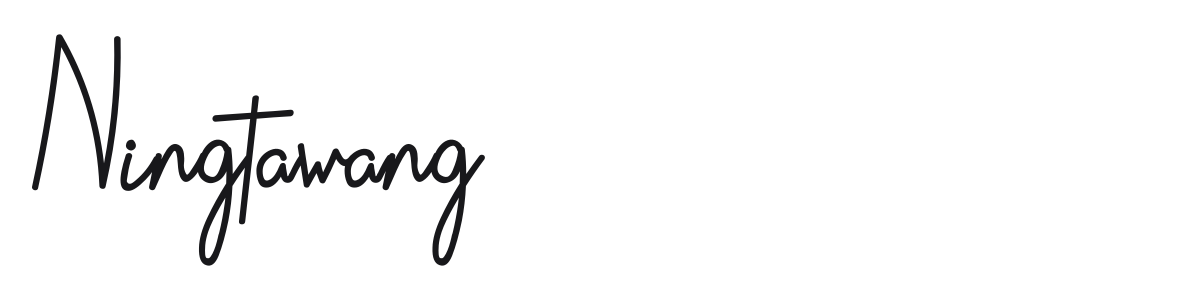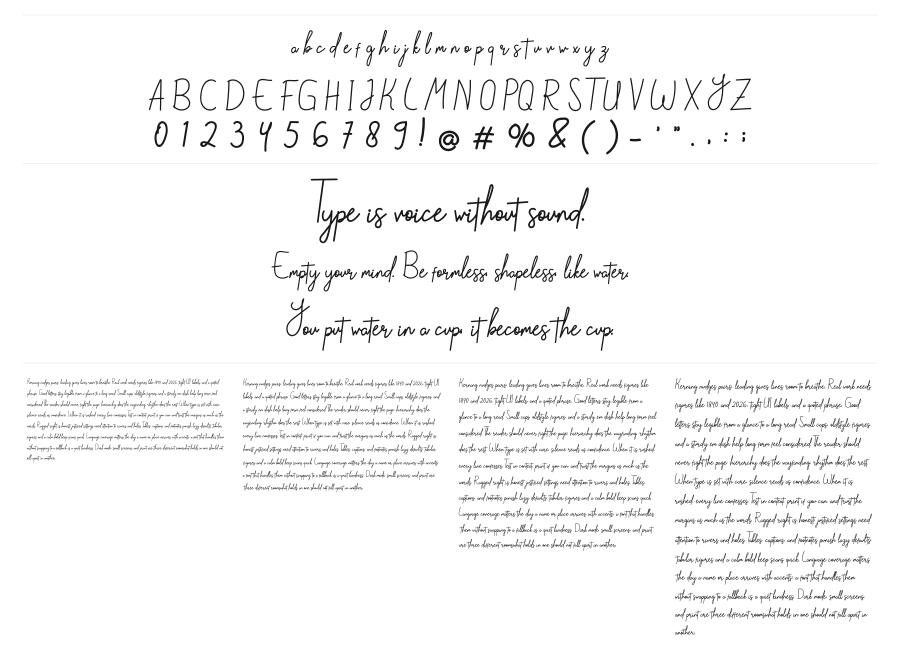
Ningtawang
Ningtawang is a casual connected script with light, flowing strokes and a naturally relaxed handwritten feel. Its smooth joins and loose loops give it an effortless, approachable quality that suits branding where warmth and informality matter. The thin weight keeps it light and versatile across backgrounds.